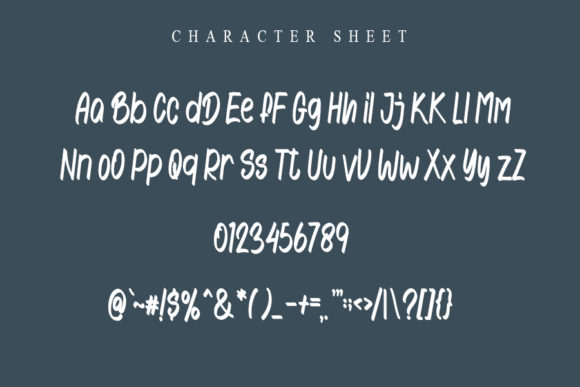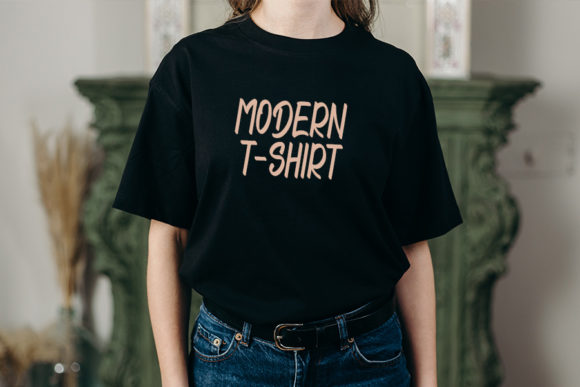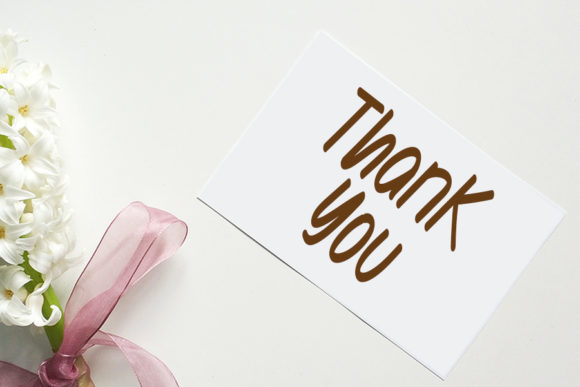
Game on Winter Font
About Game on Winter Font
Game On Winter is a lovely, bolded handwritten font that will add cheerfulness to any design! Have fun using this font in your next poster design, invitations, social media posts and so much more.